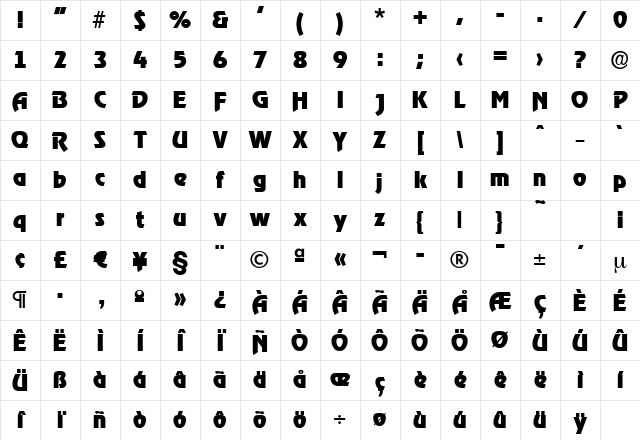
JoeBecker-Heavy Regular
Design Context for JoeBecker-Heavy
JoeBecker-Heavy is a composed and adaptable typeface that performs quietly and consistently across a wide range of design contexts.
Pro Tip: Use JoeBecker-Heavy in both headline and body roles to test its range before committing to a single application.